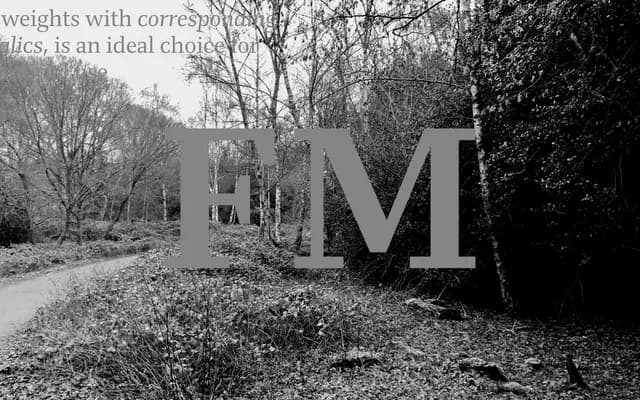
A slab serif family in seven weights with italics, designed to work across headlines, pull quotes and body text.
Spanning Thin to Black with a matching italic for each weight, this slab serif covers the full range of editorial roles without switching families. The design balances authority at large sizes with readability in continuous text, making it a single-family solution for print and digital publications. A2-Type position it as equally at home in captions as in display settings.
FM is explicitly described as a slab serif with 7 weights and italics. Its combination of authority and elegance across headline and text sizes places it in the contemporary slab serif tradition.